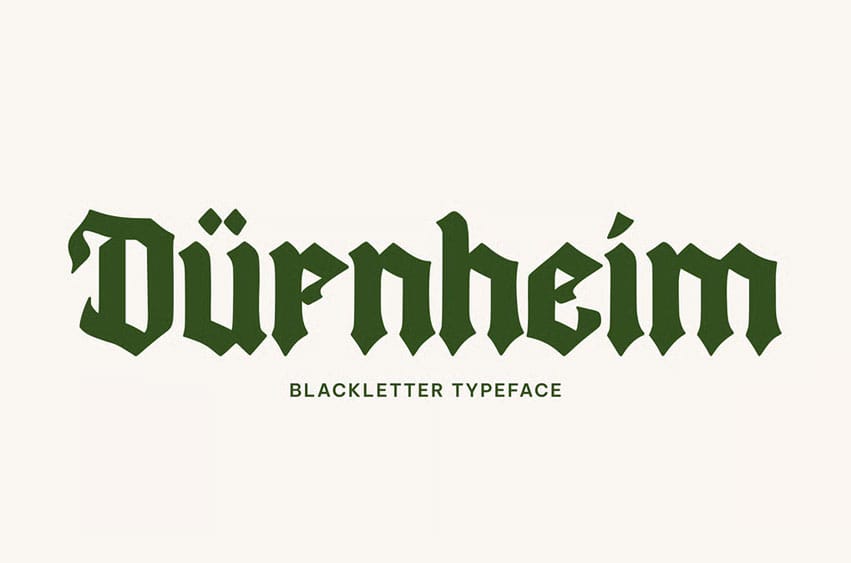
Dürnheim Font is a gothic blackletter typeface crafted to bring a bold and historic presence to every design. With its dramatic strokes and commanding feel, this typeface captures the essence of old-world tradition blended with a modern design touch. Perfect for branding that needs a strong and fearless identity, editorial layouts with a powerful personality, album covers, posters, headlines, and themed event graphics.
Durnheim carries a distinctive energy that communicates strength, legacy, and artistic depth—making every word feel iconic and memorable. Whether you’re designing for fantasy themes, historical elements, or bold modern branding, this typeface ensures your project stands out with authority and sophistication.